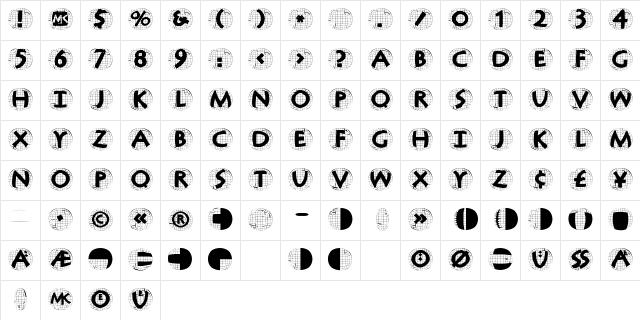
Complete AntiquaInGridBalloons Regular glyph index. Displaying only characters natively supported by AntiquaInGridBalloons Regular font.
AntiquaInGridBalloons is a composed and adaptable typeface that performs quietly and consistently across a wide range of design contexts.